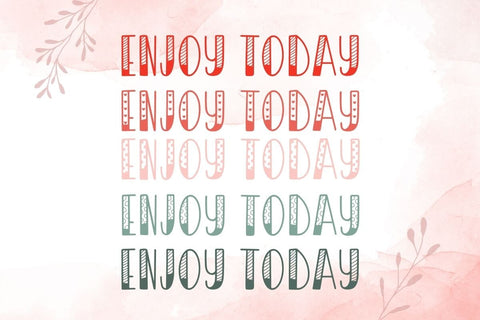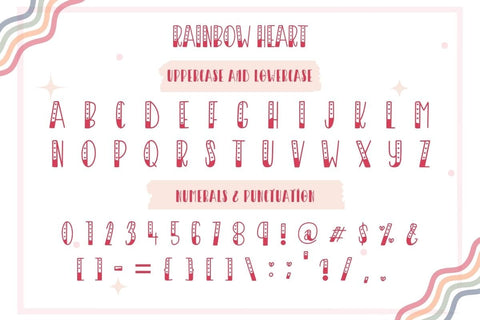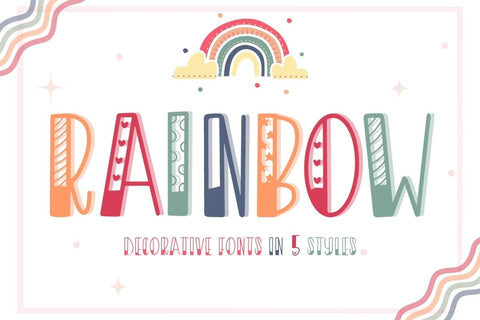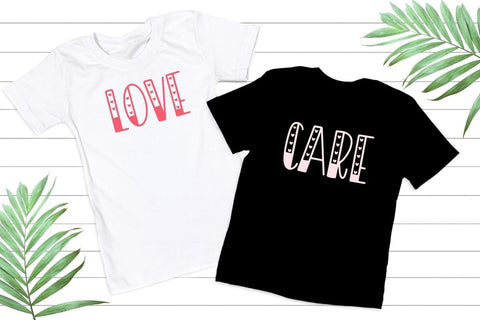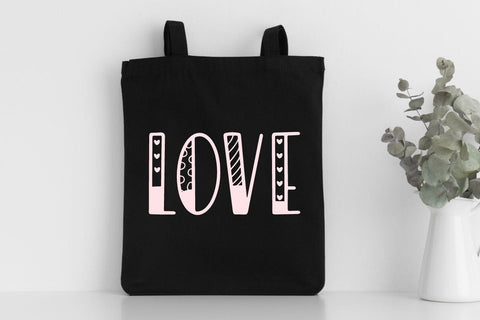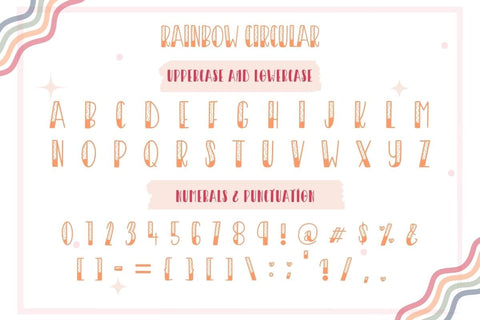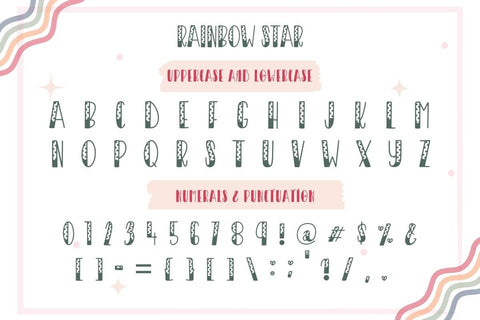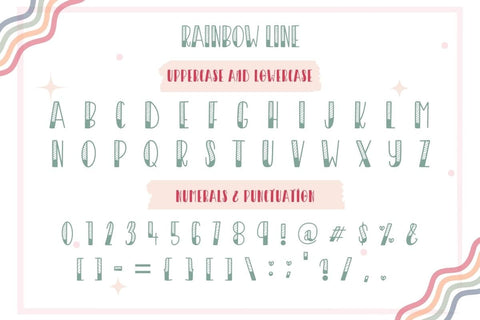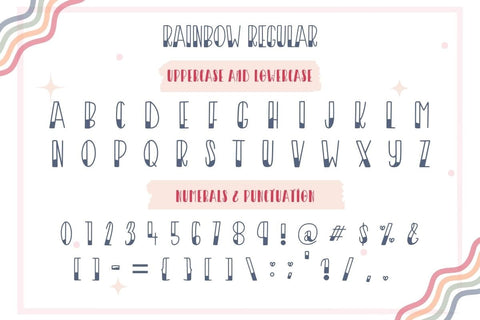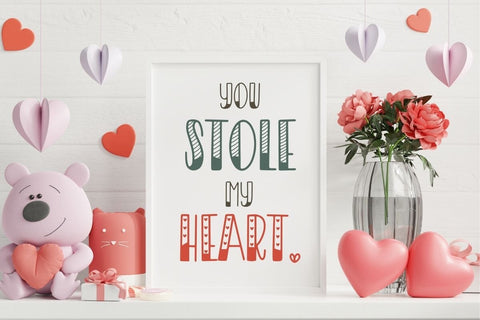
Rainbow - cute display font
Rainbow Font is a cute display font in 5 styles. ( circular, line, star, heart, and regular)
Outline font combined with different elements get new fonts that are cute and fun.
You create a wide variety of new designs to match products such as banners, content, mugs, cards, shirts, stationery, social media posts, and more!